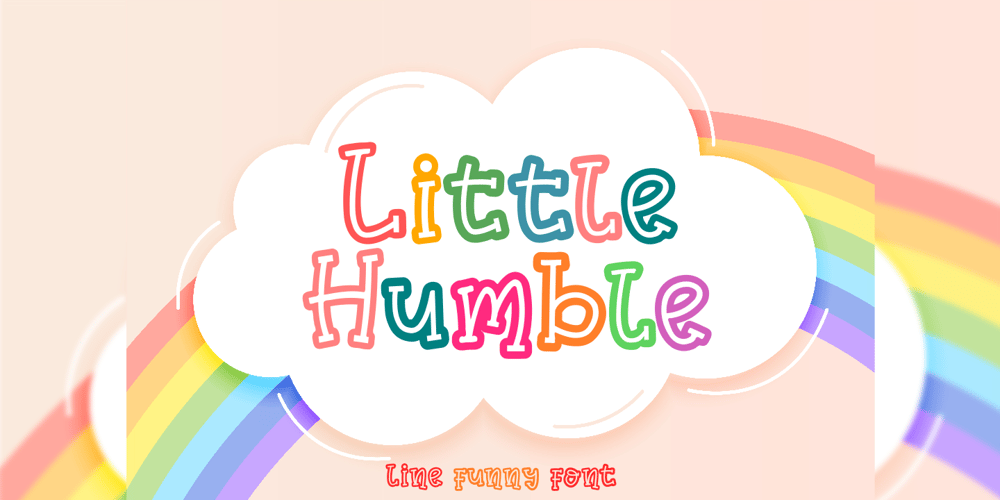
Little Humble Font Family was designed by Zeenesia Studio and published by Zeenesia Studio. Little Humble contains 1 styles and family package options. Introducing Little Humble FontLittle Humble is natural kid font. It made based on real handwriting.It can be used for cafe or coffee shop menu lists on board, branding, invitations, watermarks, advertisements, product designs,labels, product packaging, book content, quotes and more.It came with number & punctuation, multilingual support, and PUA encodeHope you like this product.